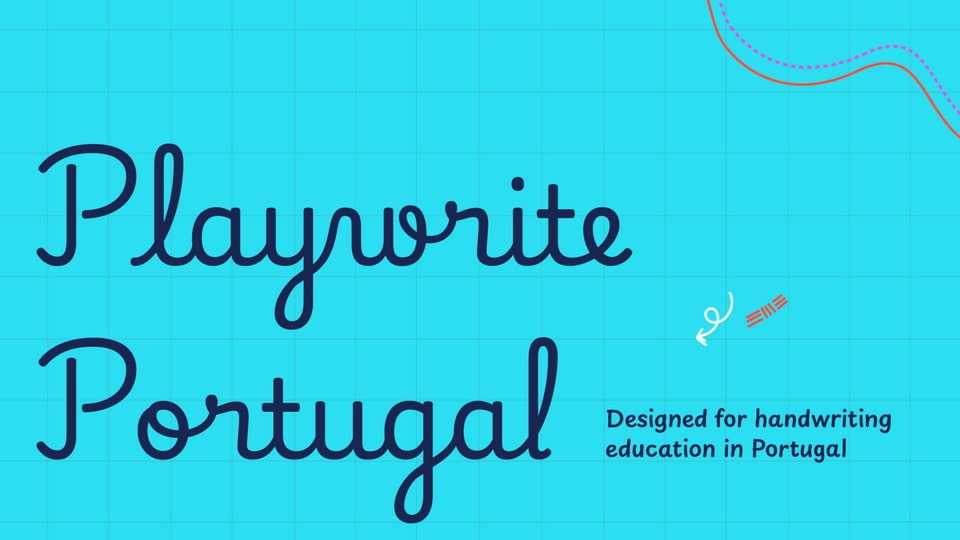
Download Playwrite Portugal font, a typeface that allows the creation of primary school cursive fonts. This upright continuous cursive model features decorative capital letters.
Designer: TypeTogether